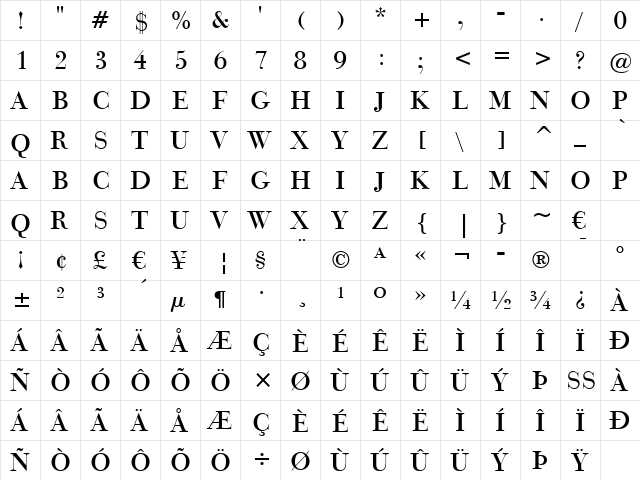
BauerBodni Titl BT Titling Font Preview
BauerBodni Titl BT Titling
BauerBodni Titl BT Titling Font Details
Design Context for BauerBodni Titl BT Typeface
BauerBodni Titl BT is a composed and adaptable typeface that performs quietly and consistently across a wide range of design contexts.
Pro Tip: Use BauerBodni Titl BT in both headline and body roles to test its range before committing to a single application.